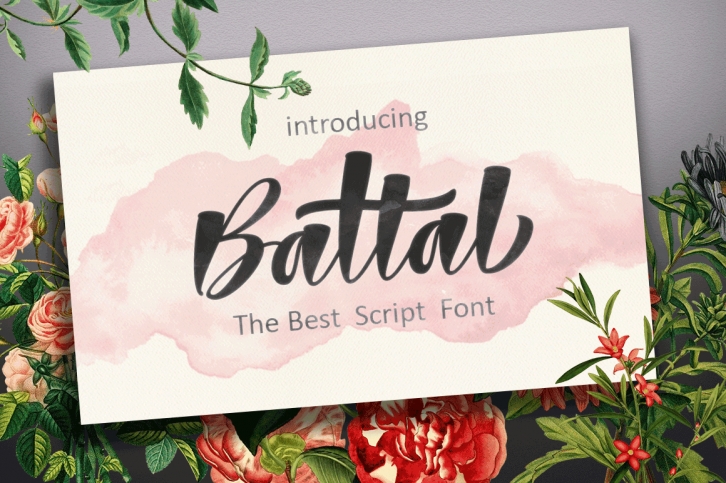
Battal Script Font Download
Battal Script is a gorgeous font that was realeased on October 1, 2017. The font can be used in many style contexts and design environments. Perfect for invitations, magazines, websites, logos, and more! It was designed by Meutuwah and the file size is 6.69 MB. Thanks for checking out this font!